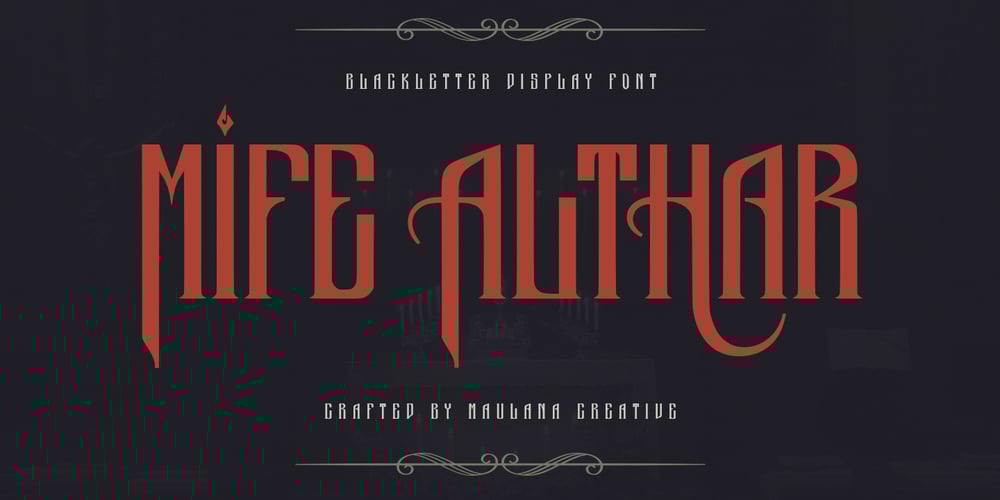
Mife Althar Font Font Family was designed by Gilang Maulana and published by Maulana Creative. Mife Althar Font contains 1 styles and family package options. Mife Althar Blackletter Display FontMife Althar Blackletter Font is a handmade Modern Victorian handlettering, which is combining modern and classic typography with some awesome alternates. Yes we back to early 1800s, bring classic touch on this decade.Thanks for use this font.Maulana Creative.